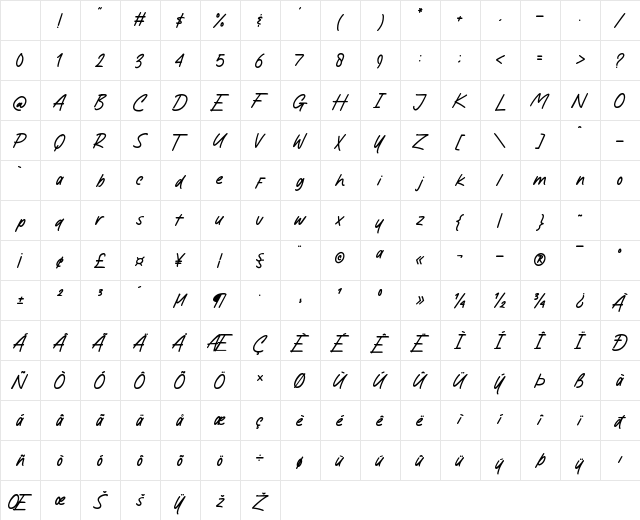
Celedestines Light is a composed and adaptable typeface that performs quietly and consistently across a wide range of design contexts. Its slender proportions lend an understated elegance to any composition.